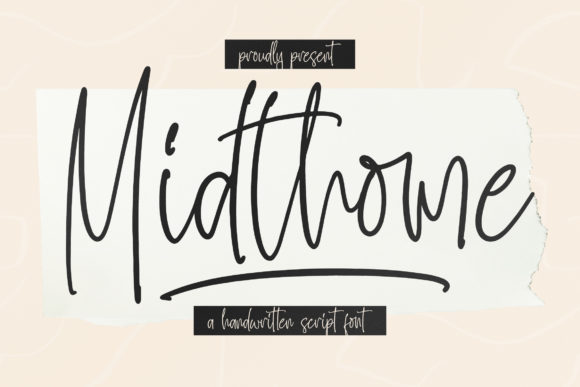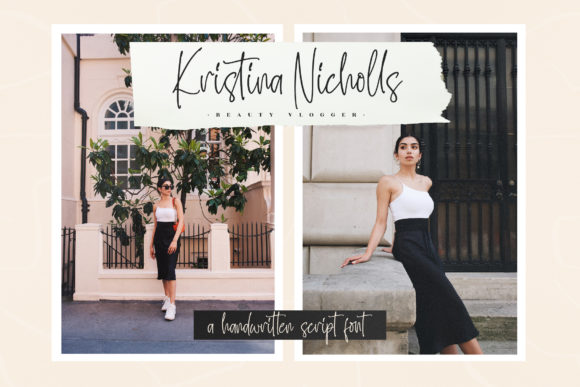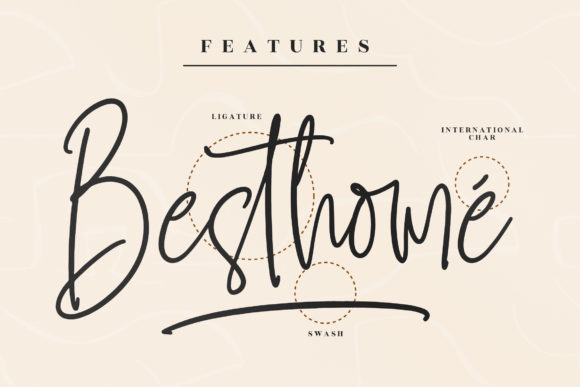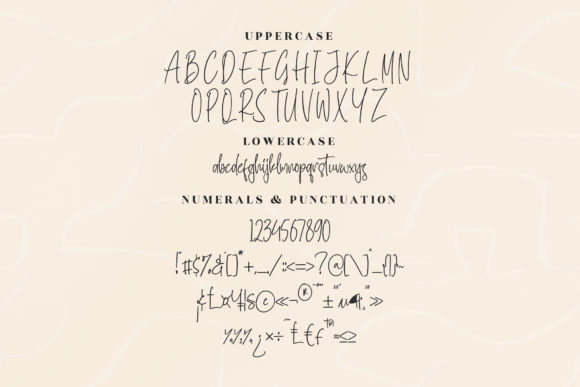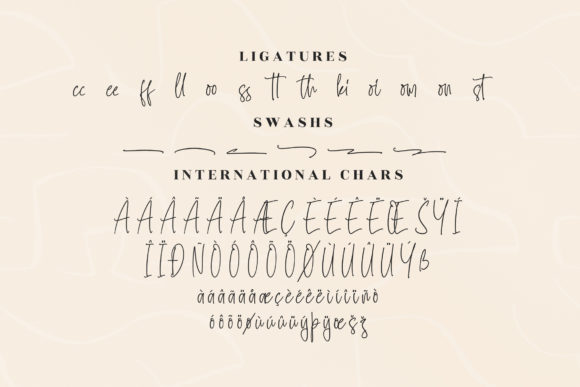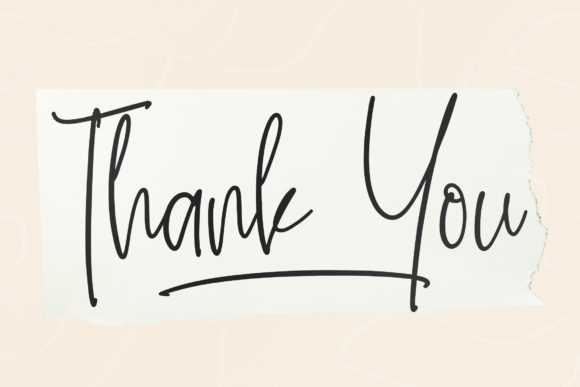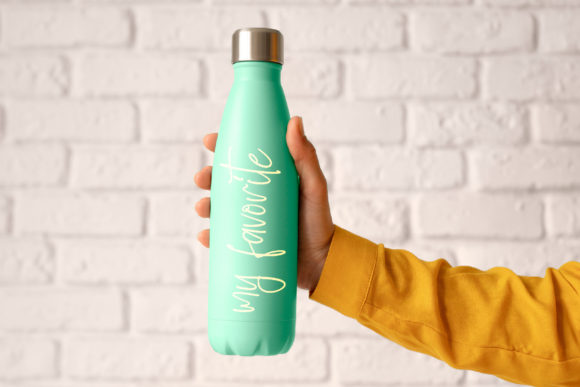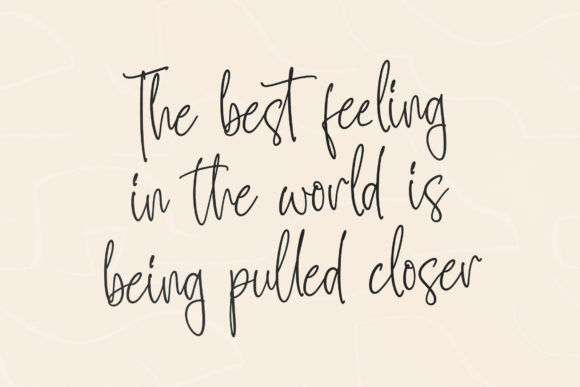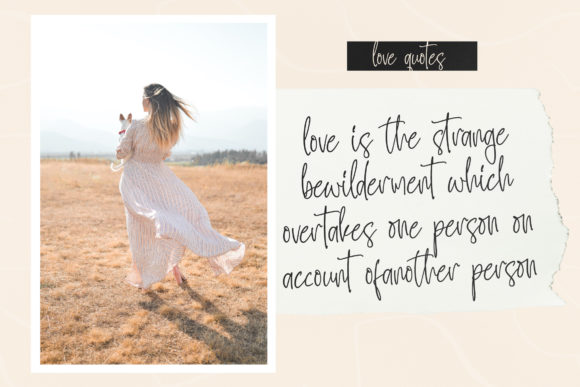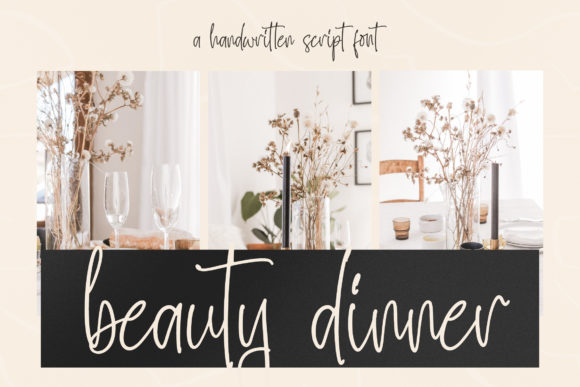
Midthome Font
About Midthome Font
Presenting Midthome, a splendid script font crafted to bring a touch of elegance to a diverse range of creative projects. This versatile font is well-suited for a variety of applications, including logos, branding projects, homeware designs, product packaging, quotes, posters, shopping bags, t-shirts, book covers, name cards, invitations, greeting cards, labels, photography watermarks, special events, and any other project that demands a beautiful script taste.
Midthome stands out as a font that effortlessly combines beauty and versatility. Its script style exudes sophistication, making it suitable for projects that require a refined and stylish aesthetic. Whether you are designing a logo, creating product packaging, or crafting a special event invitation, Midthome adds a splendid script touch that enhances the visual appeal of your work.
For branding projects, Midthome becomes a key element in establishing a unique and memorable brand identity. Its graceful script adds a touch of sophistication to logos and promotional materials, ensuring your brand communicates a sense of style and distinction.
In the realm of product design, Midthome elevates packaging, mugs, and labels. The script font brings an elegant and handcrafted quality, making your products stand out with a timeless charm that appeals to a wide audience.
On apparel like t-shirts, Midthome becomes a stylish choice for incorporating quotes or phrases. Its script taste adds a trendy and artistic dimension to fashion items, allowing you to create designs that resonate with contemporary aesthetics.
Printed materials such as book covers, name cards, and invitations benefit from Midthome’s versatile script. Its aesthetic adaptability ensures a cohesive and attractive look across a variety of design contexts, making it a reliable choice for creating visually appealing collateral.
Midthome is not just a font; it’s a design asset that brings a beautiful script taste to all your creative projects. Whether for special events, photography watermarks, or any other lovely endeavor, Midthome adds a touch of splendid elegance. Embrace the versatility and charm of Midthome as you infuse your designs with the beauty of this splendid script font.